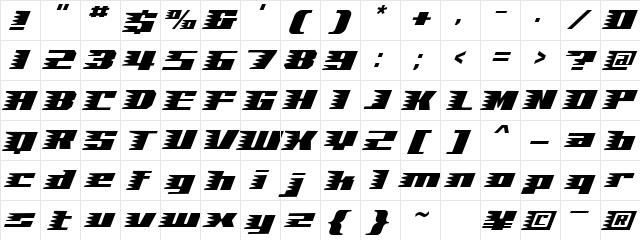
Speed Normal Font Preview
Speed Normal
Speed Normal Font Details
Design Context for Speed Typeface
Speed is a composed and adaptable typeface that performs quietly and consistently across a wide range of design contexts.